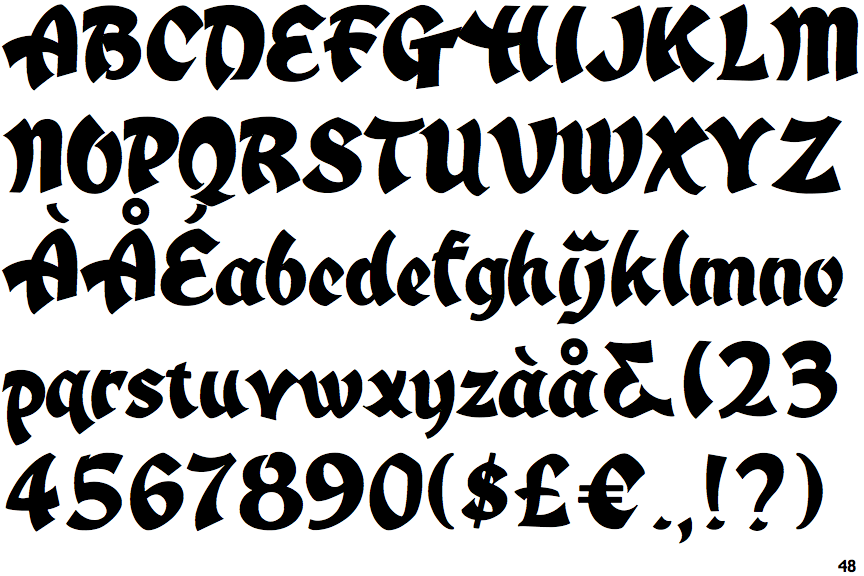
Eastern Star
Based on a hand-lettered alphabet in the book "Lettering for the Commercial Artist" by A. H. Hunter, published in 1946.
Designer: Jason Walcott Year: 2006 Publisher: Jukebox |